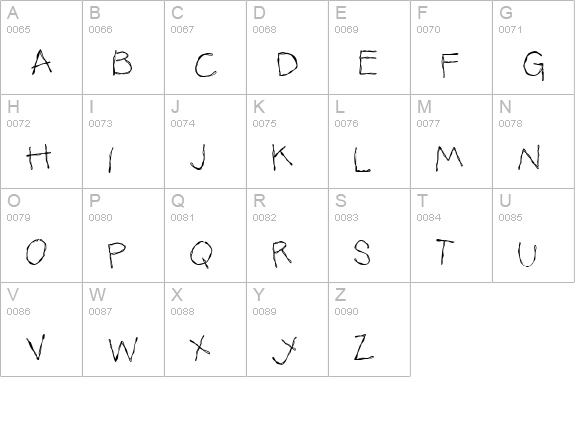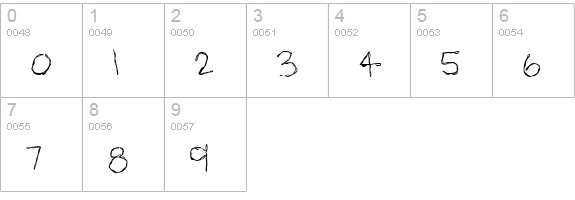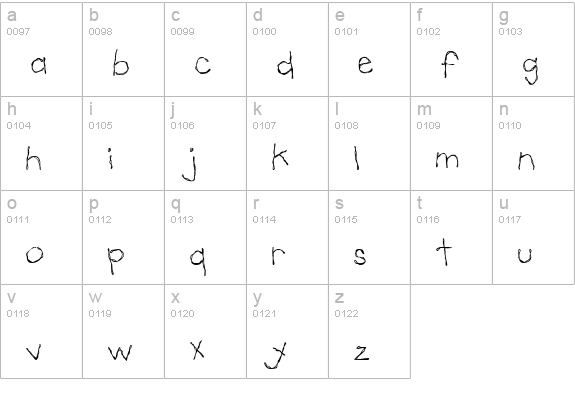
CK Squiggle Font Details
The CK Squiggle font is a whimsical and playful typeface that adds a touch of fun and creativity to any design project. With its unique squiggly lines and flowing curves, this font is perfect for adding a touch of personality to posters, invitations, and more. The CK Squiggle font is versatile and can be used for a variety of projects, from branding to social media graphics. Best of all, it is completely free to download at FontsMarket.com, making it accessible to everyone looking to add a touch of whimsy to their designs. Get your hands on this delightful font today and let your creativity run wild!